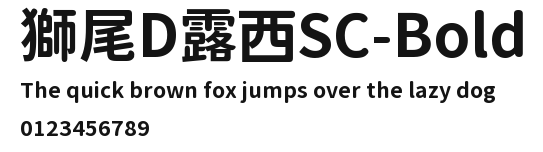
獅尾D露西SC-Bold Preview
About 獅尾D露西SC-Bold.ttf
獅尾D露西SC-Bold.ttf is a modern, elegant sans-serif font designed for ultimate readability and visual harmony. Perfect for branding, headlines, web design, and print materials.